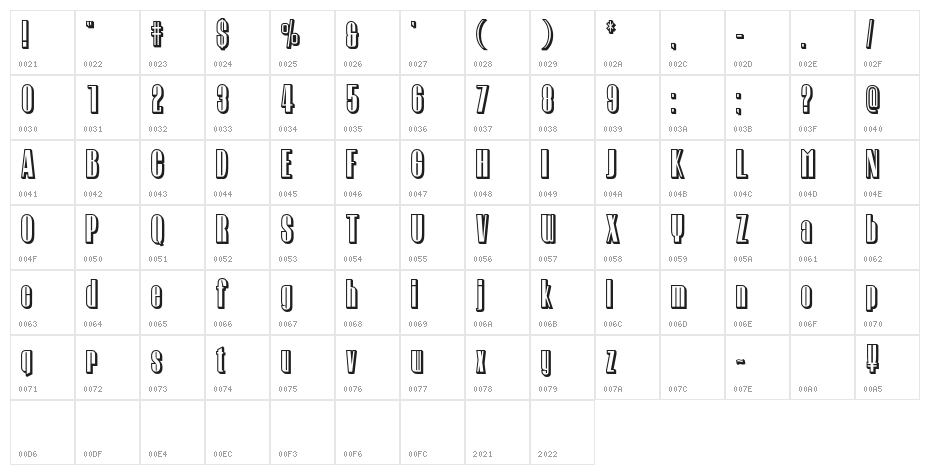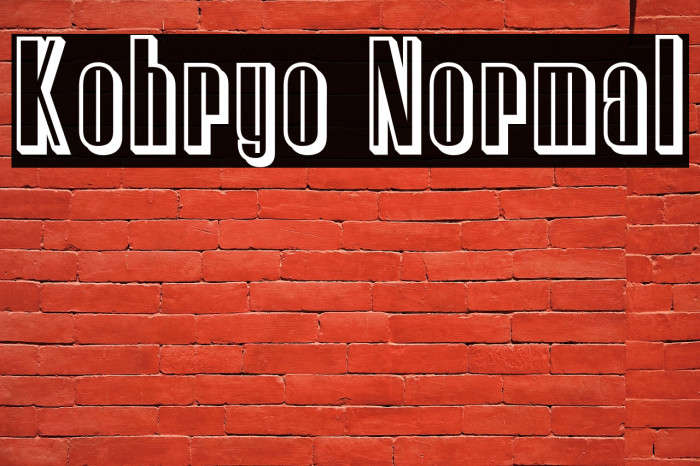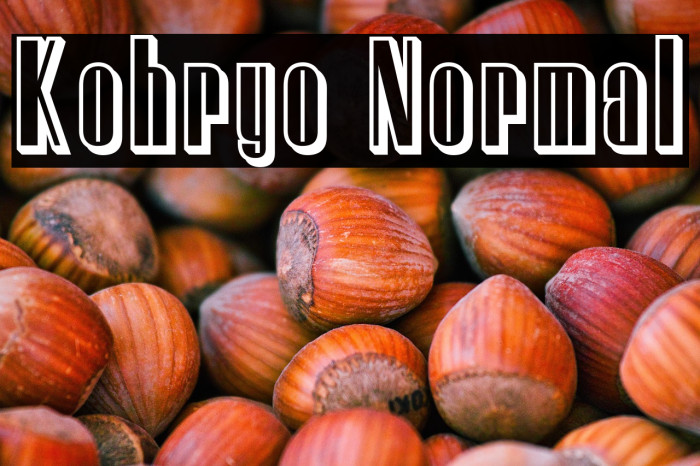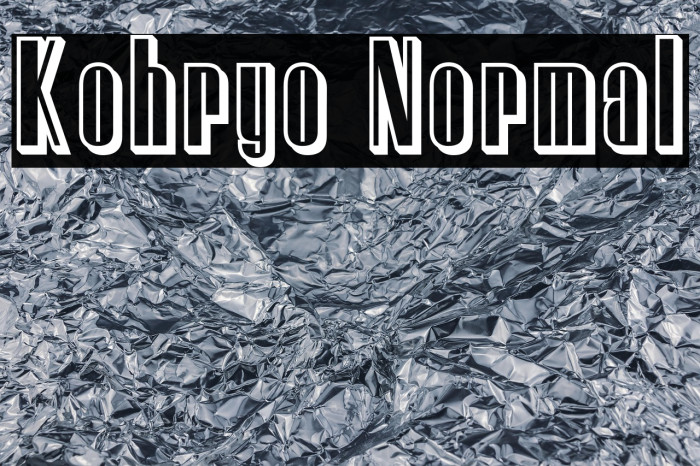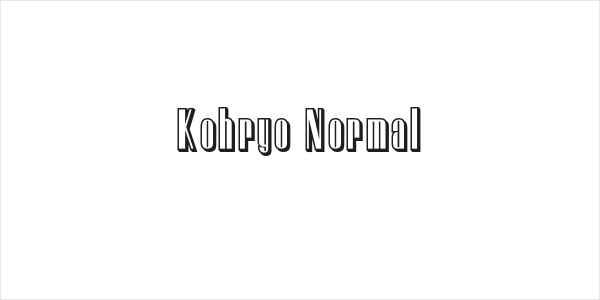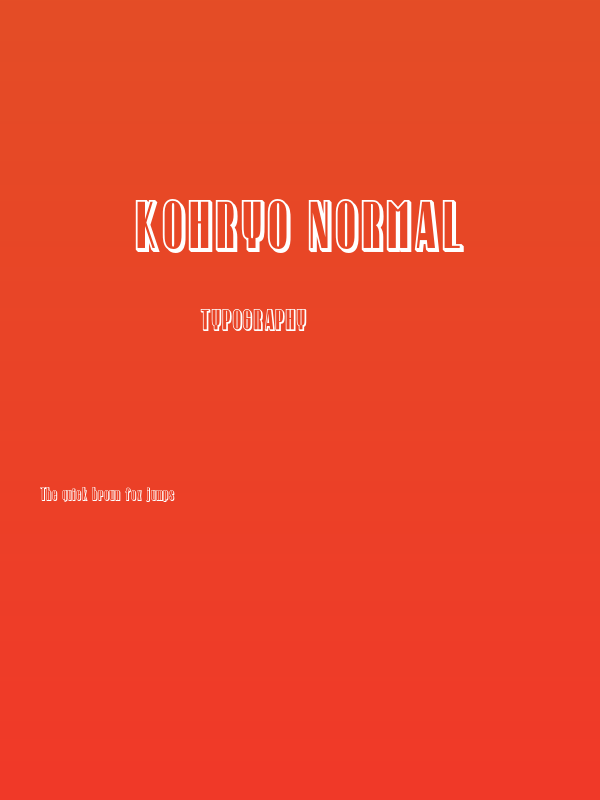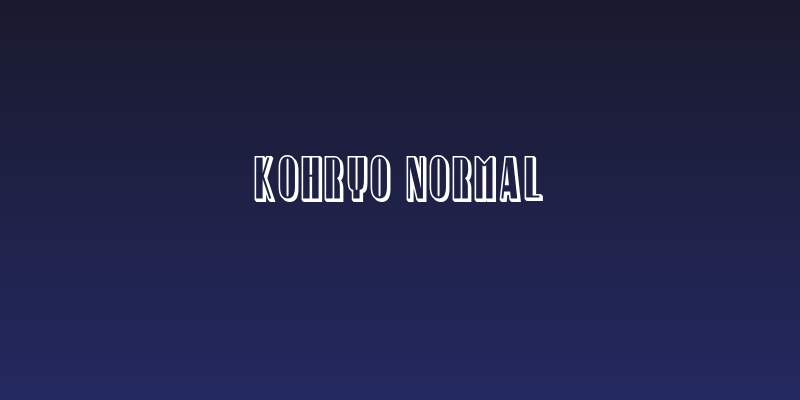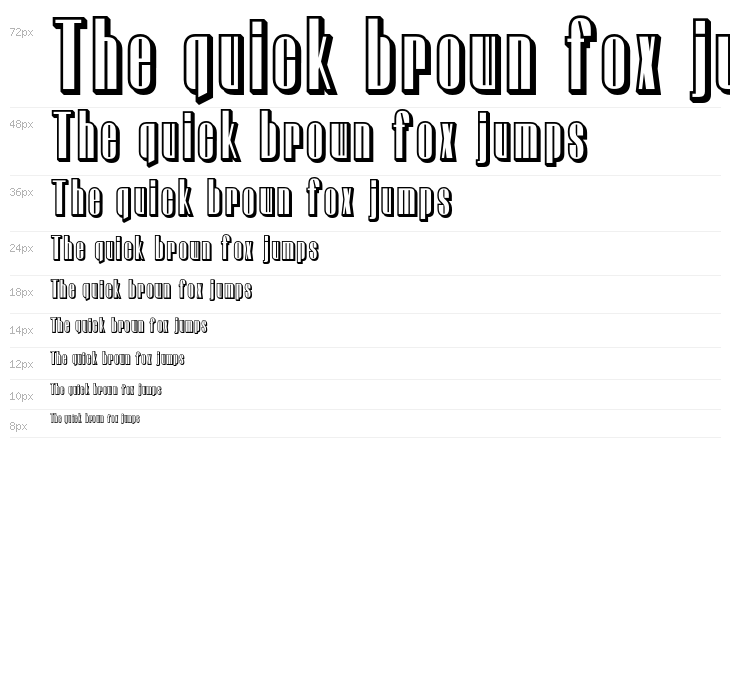
Kohryo Normal Font
Kohryo Normal Description
This font features a bold and striking design with a three-dimensional effect, created by a combination of thick, solid strokes and a shadow-like outline. The uppercase and lowercase letters maintain a consistent width, giving the font a uniform appearance. The characters are well-defined with sharp edges, making them highly legible. The numbers and special characters follow the same stylistic approach, ensuring a cohesive look across all elements. This font's unique style makes it stand out, ideal for attention-grabbing designs.
| Proposed Projects | Ideal for posters, headlines, logos, and branding materials where a bold statement is needed. |